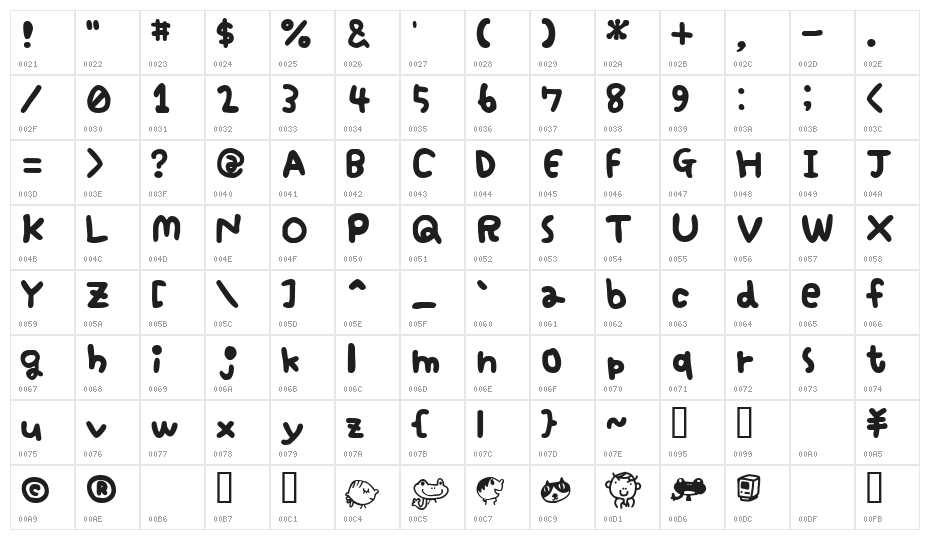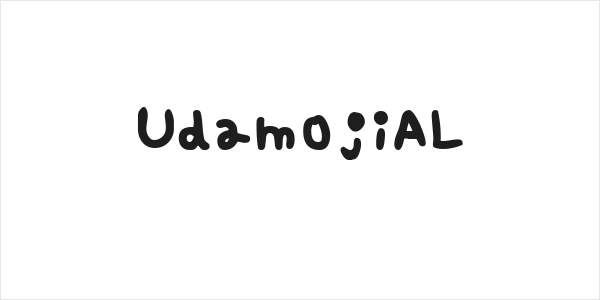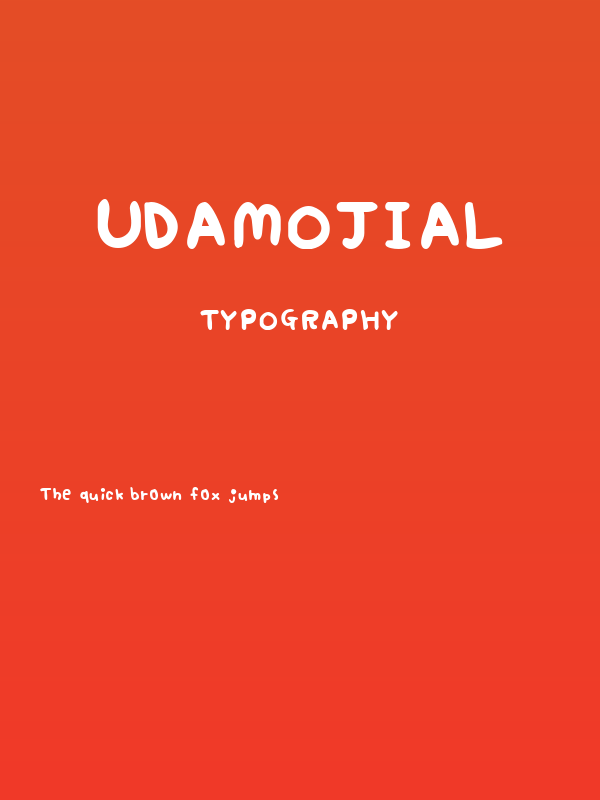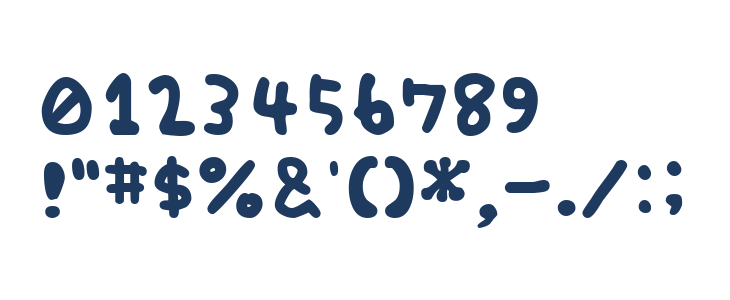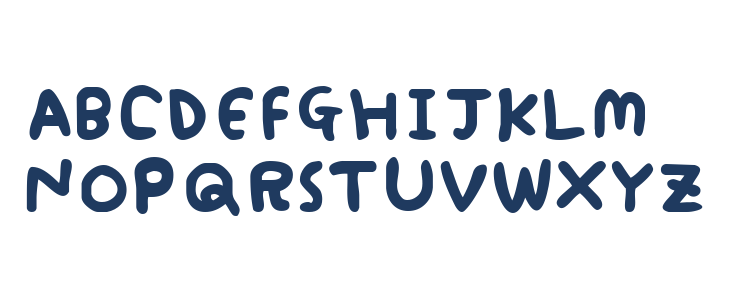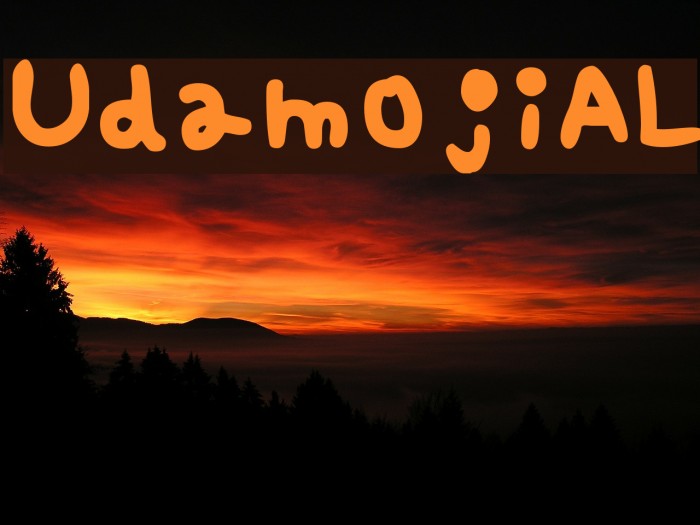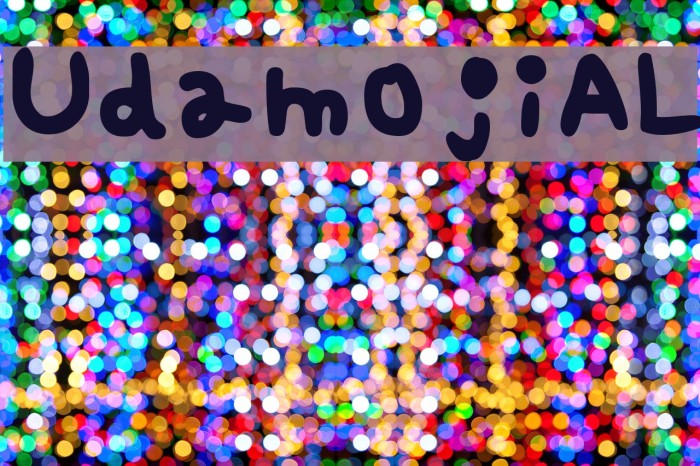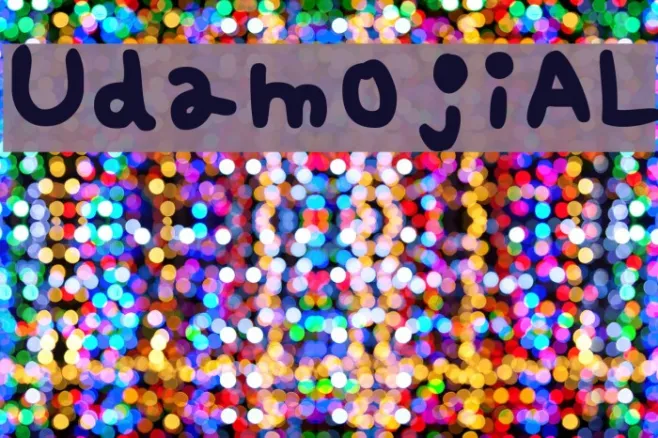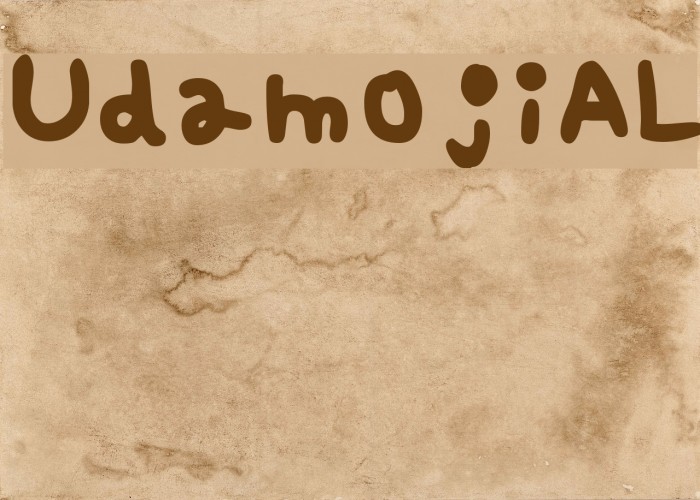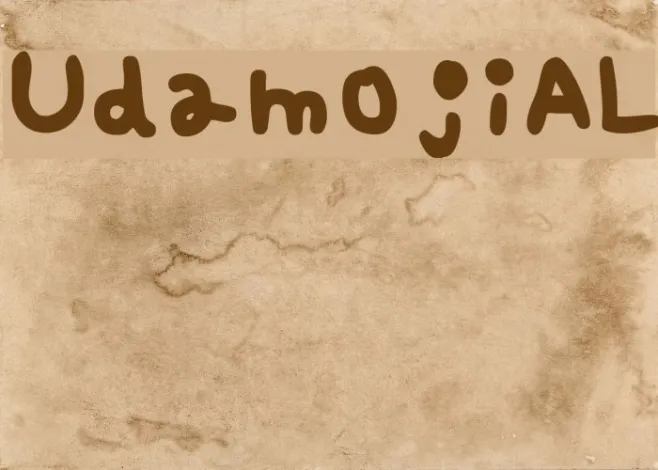
UdamojiAL Font
UdamojiAL Description
This playful and whimsical font features rounded, bold characters with a hand-drawn appearance. The letters have a consistent thickness, giving them a uniform look, yet each character retains a unique, organic feel. The font's informal style is accentuated by its slightly irregular shapes and varying baseline, which adds to its charm and approachability. The numerals and special characters maintain the same playful aesthetic, making it suitable for creative and fun projects. Its bold and rounded design ensures readability while conveying a sense of friendliness and creativity.